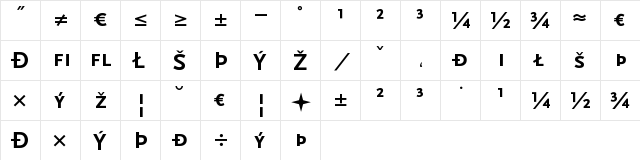
ScalaSans Caps Exp Bold
Design Context for ScalaSans Caps Exp Typeface
ScalaSans Caps Exp is a composed and adaptable typeface that performs quietly and consistently across a wide range of design contexts. The heavy weight commands attention and anchors typographic hierarchies.